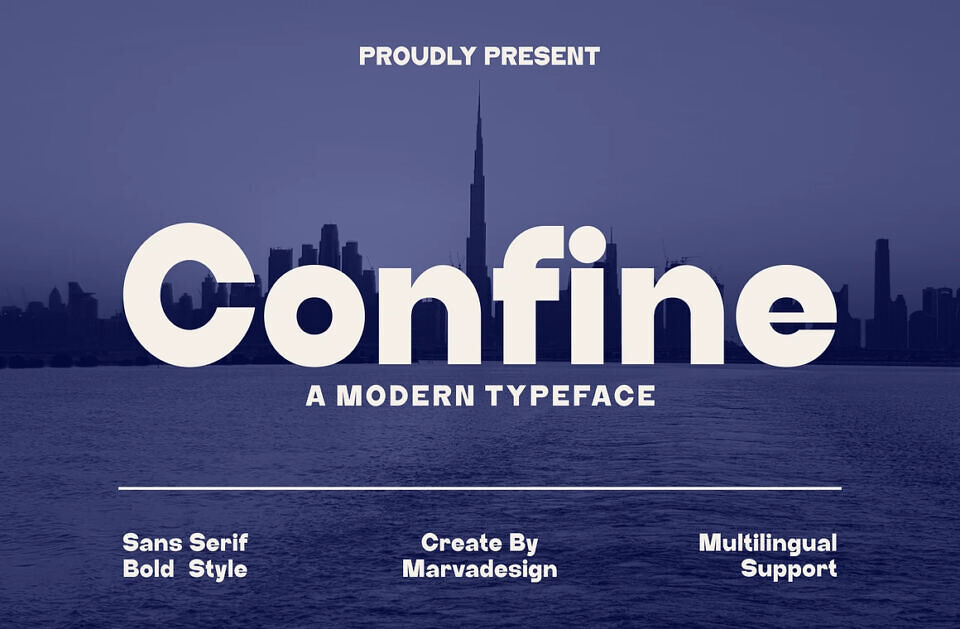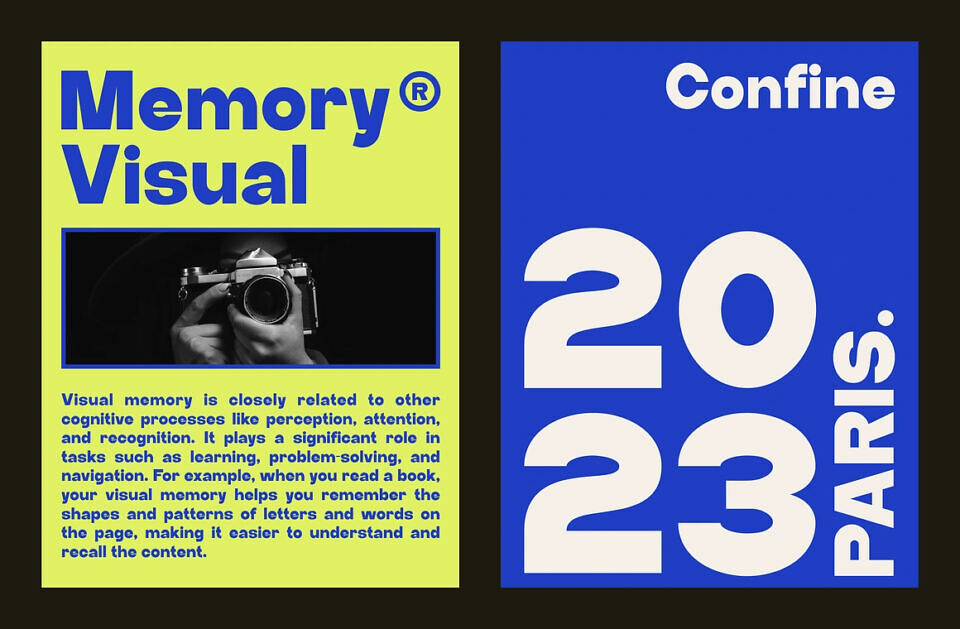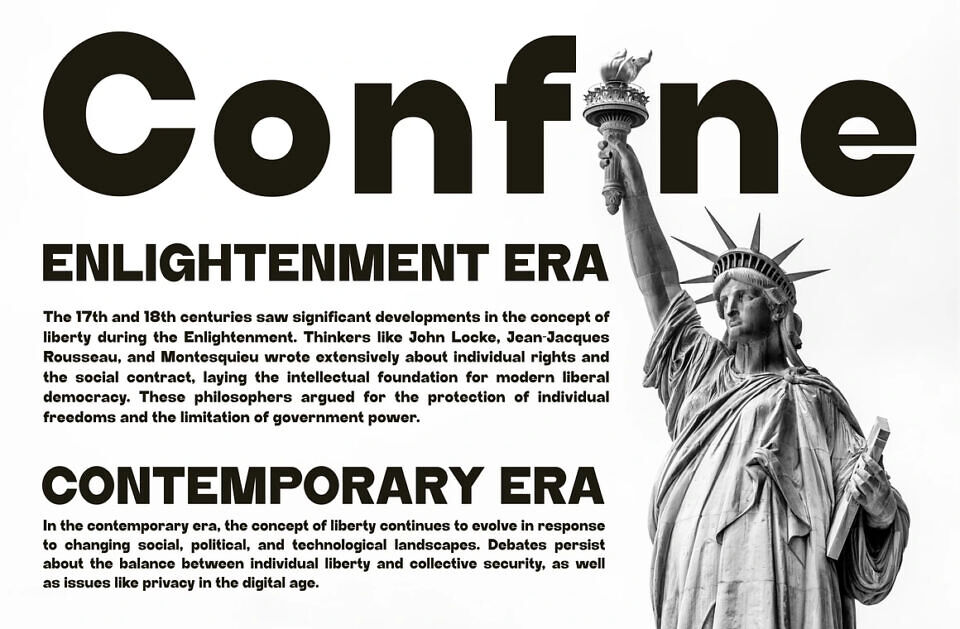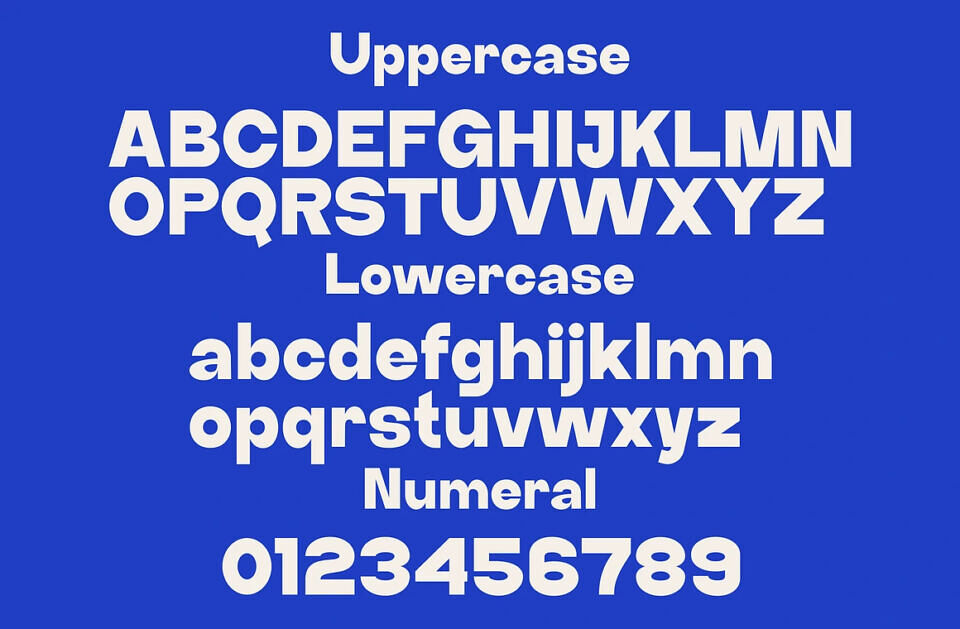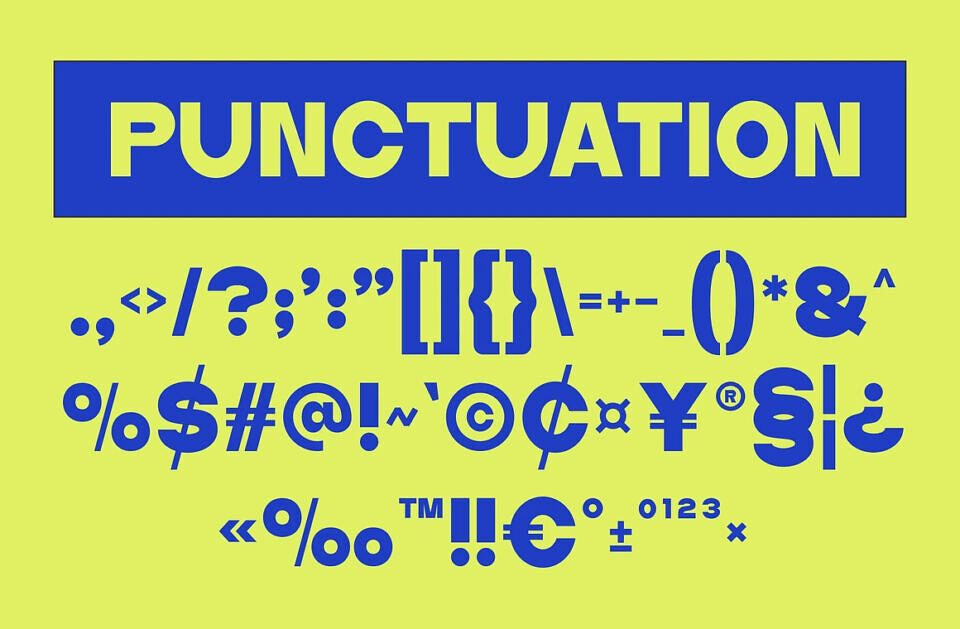
Confine Font
Confine is a clean and modern font style that looks simple yet stylish. Its sans serif design means it doesn’t have fancy strokes at the ends of letters. This font is easy to read and great for many uses, like posters, logos, or websites. It gives a sleek and contemporary feel to any text it’s used for.